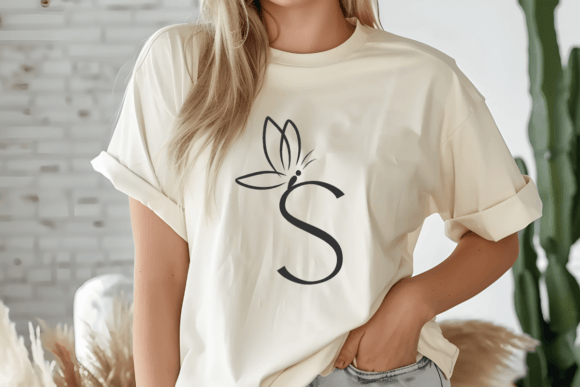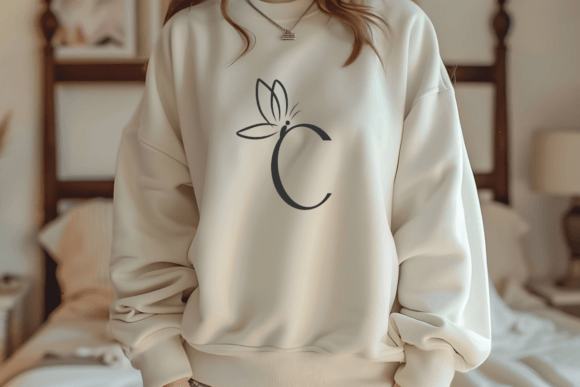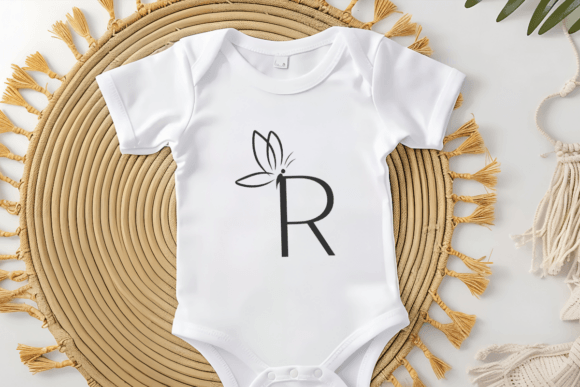
Introducing the Beautiful Butterfly Font: Elevate Your Designs with Elegance
Are you a designer, crafter, or DIY enthusiast looking for a unique and elegant font to add a touch of whimsy to your projects? Look no further than the Butterfly Font! This stunning decorative font is sure to capture your heart with its beautiful, simple illustrations of butterflies intricately woven into each letter.
What Makes the Butterfly Font So Special?
The Butterfly Font stands out from the crowd due to its distinctive and artistic approach to typography. Each letter is meticulously designed with a butterfly motif, transforming ordinary text into a work of art. This font is not just a collection of characters; it’s an expression of creativity and elegance, perfect for projects that require a touch of nature’s beauty and grace.
Perfect for Crafters and Designers
Whether you’re a professional designer or a hobbyist crafter, the Butterfly Font offers endless possibilities for creative expression. Its unique style makes it an ideal choice for a variety of projects, including:
- Stickers and Labels: Add a personal touch to your stickers and labels with this eye-catching font.
- Logos and Branding: Create a memorable brand identity with a logo that stands out.
- Apparel and T-Shirts: Design custom clothing that showcases your personality or brand.
- Wall Art and Decor: Bring elegance to your home decor with custom wall art.
- Tattoos: For those with a passion for body art, this font can inspire unique tattoo designs.
- Baby Clothes and Accessories: Create adorable and personalized items for little ones.
- Initials and Monograms: Add a touch of sophistication to personalized gifts.
Why Choose the Butterfly Font?
There are countless reasons why the Butterfly Font should be your go-to choice for your next creative project:
- Unique and Eye-Catching: The butterfly illustrations ensure your text doesn’t go unnoticed.
- Versatile: Suitable for a wide range of projects, from digital designs to handmade crafts.
- Elegant and Whimsical: Adds a touch of elegance and playfulness to any design.
- Easy to Use: Despite its intricate design, the font is clear and readable.
Tips for Using the Butterfly Font
To make the most of this beautiful font, consider the following tips:
- Pair with Simpler Fonts: For optimal readability, pair the Butterfly Font with a simpler font for headings and body text.
- Experiment with Colors: The font looks stunning in pastel colors but can also be bold and striking in bright hues.
- Play with Sizes: Use larger sizes for headers and smaller sizes for body text or captions.
The Butterfly Font is more than just a collection of letters; it’s a tool for bringing your creative visions to life. Its unique blend of elegance and playfulness makes it a versatile choice for designers, crafters, and DIY enthusiasts. Whether you’re creating something for personal use or professional projects, this font is sure to add that extra special touch. So why wait? Dive into the world of creative possibilities with the Butterfly Font today!